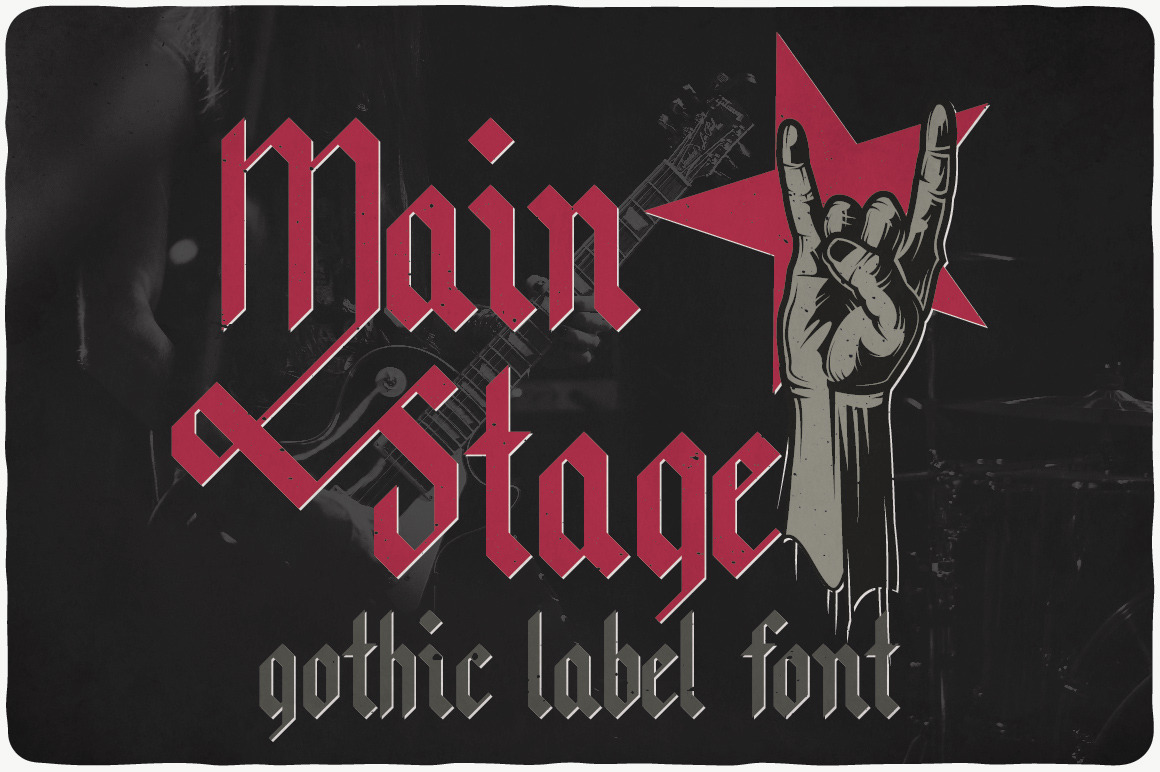
Main Stage typeface
Introducing a gothic and vintage look label typeface named "Main Stage". This typeface contents caps and small letters, numbers and several punctuation signs. Typeface will good viewed on any yours design.